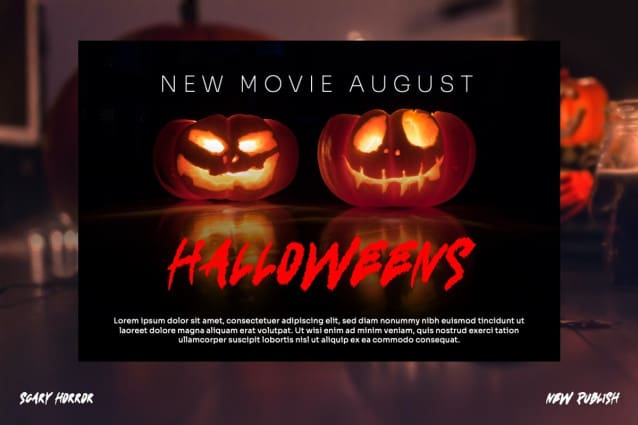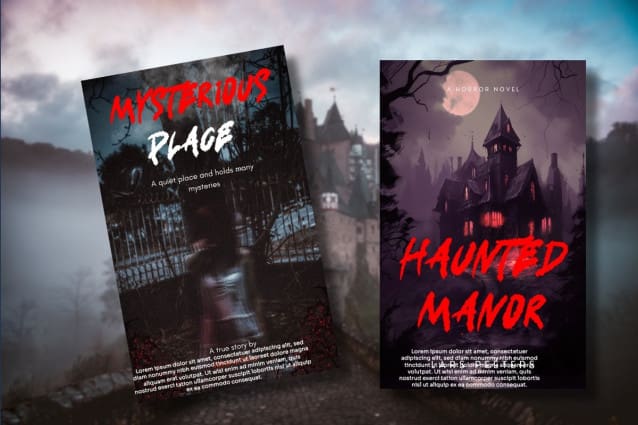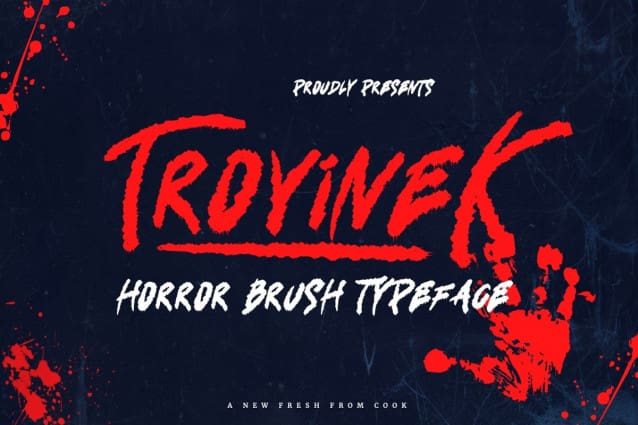
Trovinek Horror Brush Font
Trovinek Horror Brush Font is a horror and commanding brush font that is perfect for adding a sinister and powerful touch to your designs. Its bold, sharp edges and thick strokes give it a menacing look and feel, while its distressed texture creates a haunting atmosphere. It’s ideal for creating intense and dramatic titles and headlines.